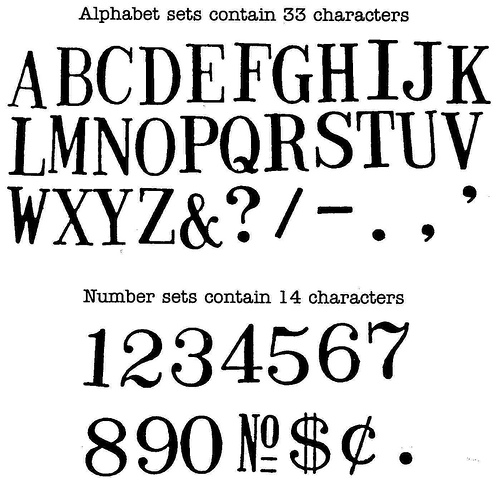
Font ID (rubber stamp)
this image is of impressions made by rubber stamps--
i believe that it is an antique clarendon font--
can anyone point me to the source?
Query here
Is Cindy attempting to source the font itself, as foundry metal, Lino slugs or as a digital font or is the quest to find a source for the Stamp Printing Outfit ??
For sure it is not an Austrian Trodat rig for all of those are san-serif fonts - Helvetica at a pinch.
There were a range of John Bull kits - obviously British but I have never had a catalog for these - nor do I know if they are still available.
Another point is Cindy's whereabouts which could influence the availability of stamp sets of foreign manufacture.
Just a thought or two to make life a bit harder - a little more info could smooth the way and maybe even get a result !!